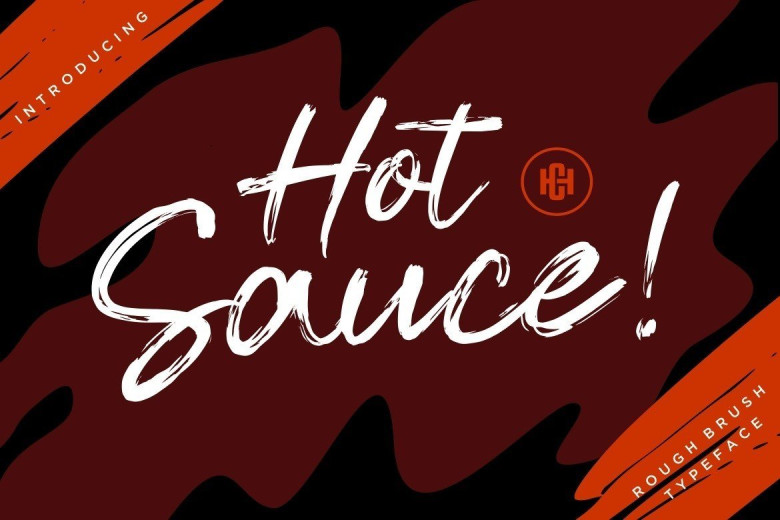
Hot Sauce Dry Brush Script Font
Hot Sauce Font is a strong hand drawn dry brush font. Hot Sauce is great for headlines and logotype use. Hot Sauce is packed with automatic Contextual Alternates and Standard Ligatures that keep the text vivid.
Hot Sauce is very suitable for branding projects, home appliances design, product packaging, design on t-shirts, calendar design, logo design and so on. This font is free for PERSONAL USE. Link to purchase full version and commercial license: HERE